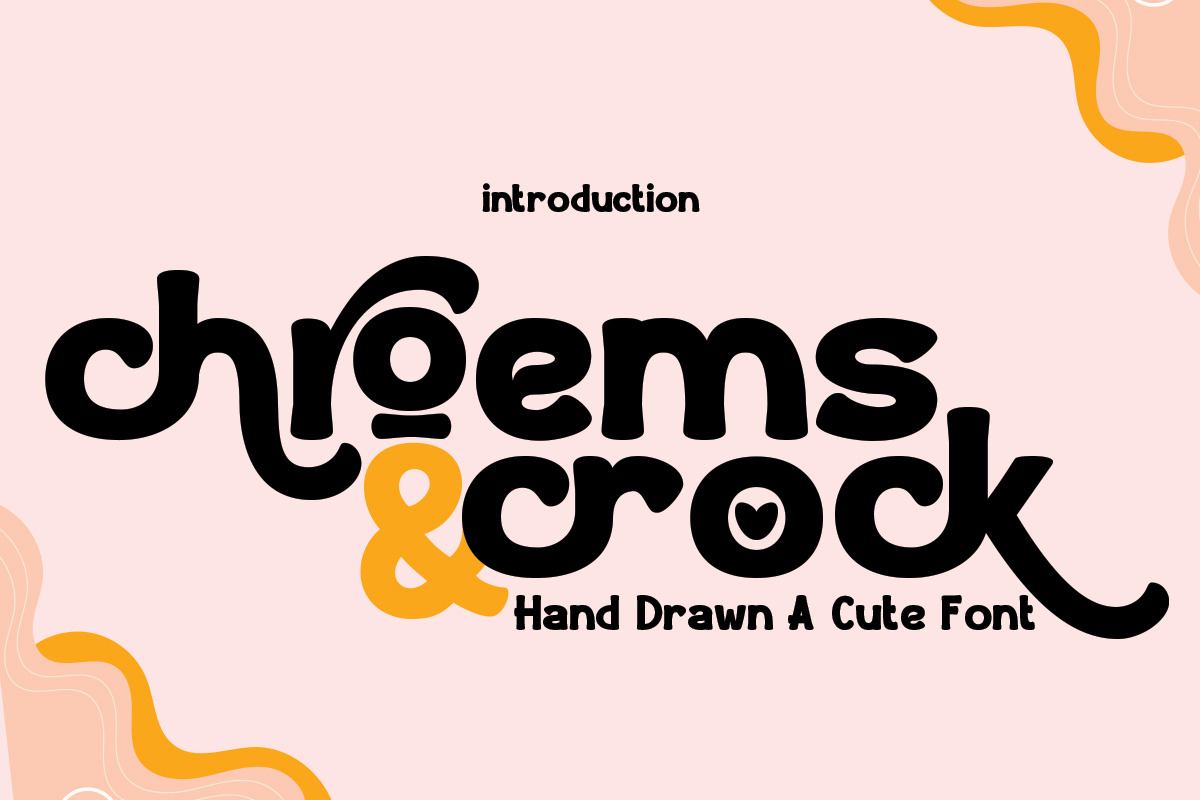
Chroems and Crock Font Free Download
Chroems and Crock Font Free Download is a quirky and imaginative typeface that blends playful character with a handcrafted feel. Perfect for children's books, fantasy-themed designs, whimsical branding, and fun product packaging, this font brings storytelling to life with its unique and expressive letterforms. It’s made for creatives who want to add charm, personality, and a touch of magic to their work.
Using the Chroems and Crock Font Free Download gives your designs a friendly and adventurous vibe. Whether you're designing for games, cartoons, or playful merchandise, this font sets the tone for fun and creativity. Its distinct shapes make it eye-catching while remaining highly readable.